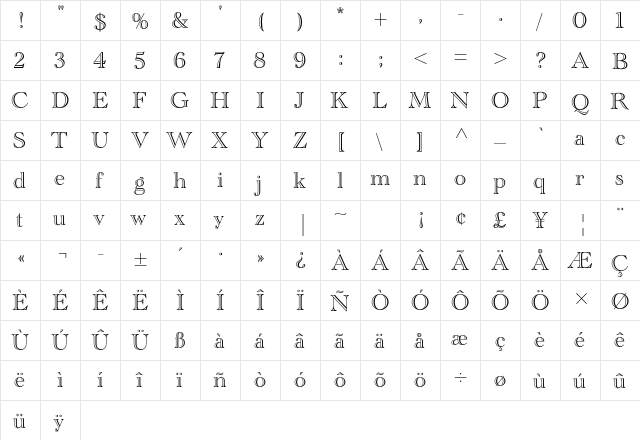
Academy Engraved Std Regular
| Designer | Vince Whitlock |
Design Context for Academy Engraved Std Typeface
Academy Engraved Std brings ornamental detail and strong personality to headlines and identities, where visual impact matters more than quiet functionality.
Font Pairing: Pair with a clean neutral sans-serif for body copy to let Academy Engraved Std's character lead without overwhelming the composition.
Pro Tip: Treat Academy Engraved Std as the centrepiece of your typographic hierarchy. One strong heading set in a decorative face can carry an entire layout.